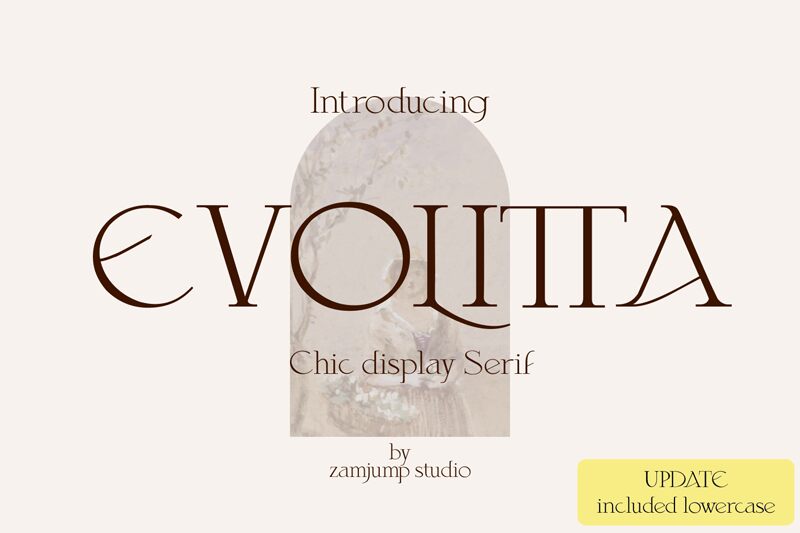
Evolitta is a beautiful serif font designed by Zamzamy Ahmad of zamjump_studio. This elegant font is light in character, perfect for adding an air of sophistication to any project. Evolitta is perfect for creating stunning logos, marketing materials, wedding invitations and more. Its timeless style adds a classic touch to any design.